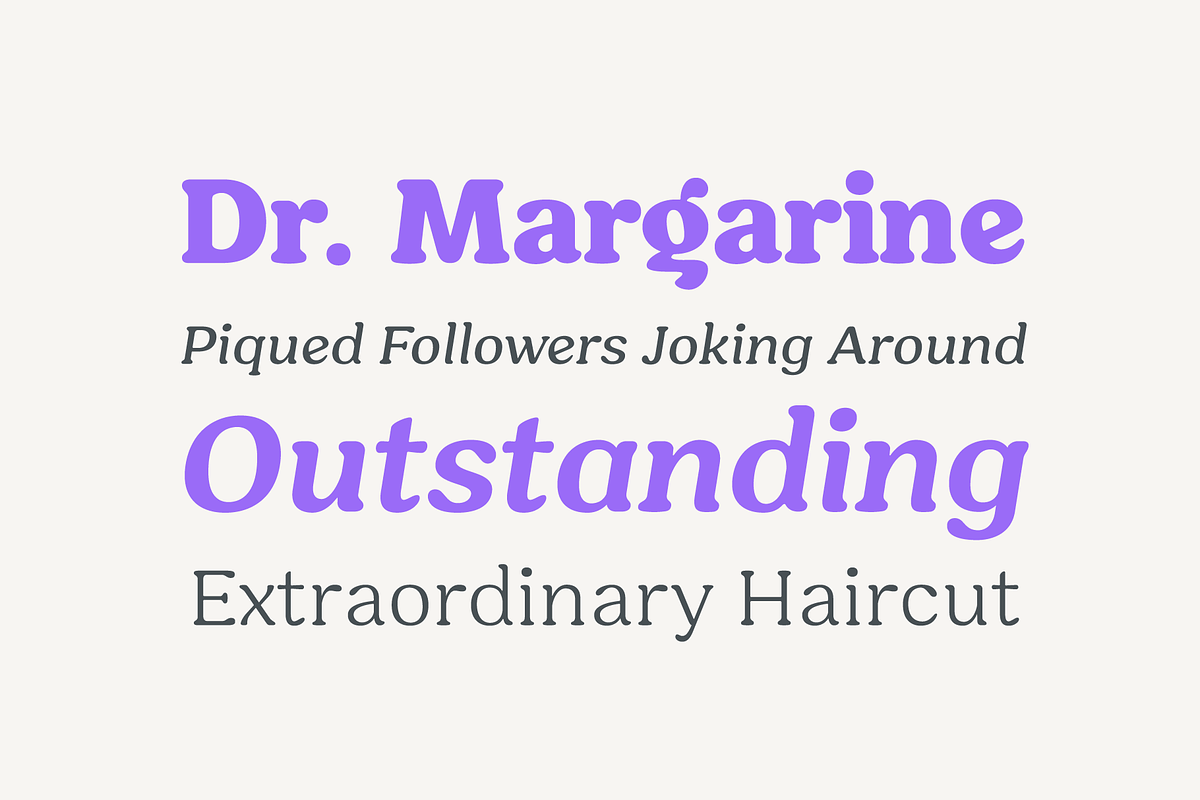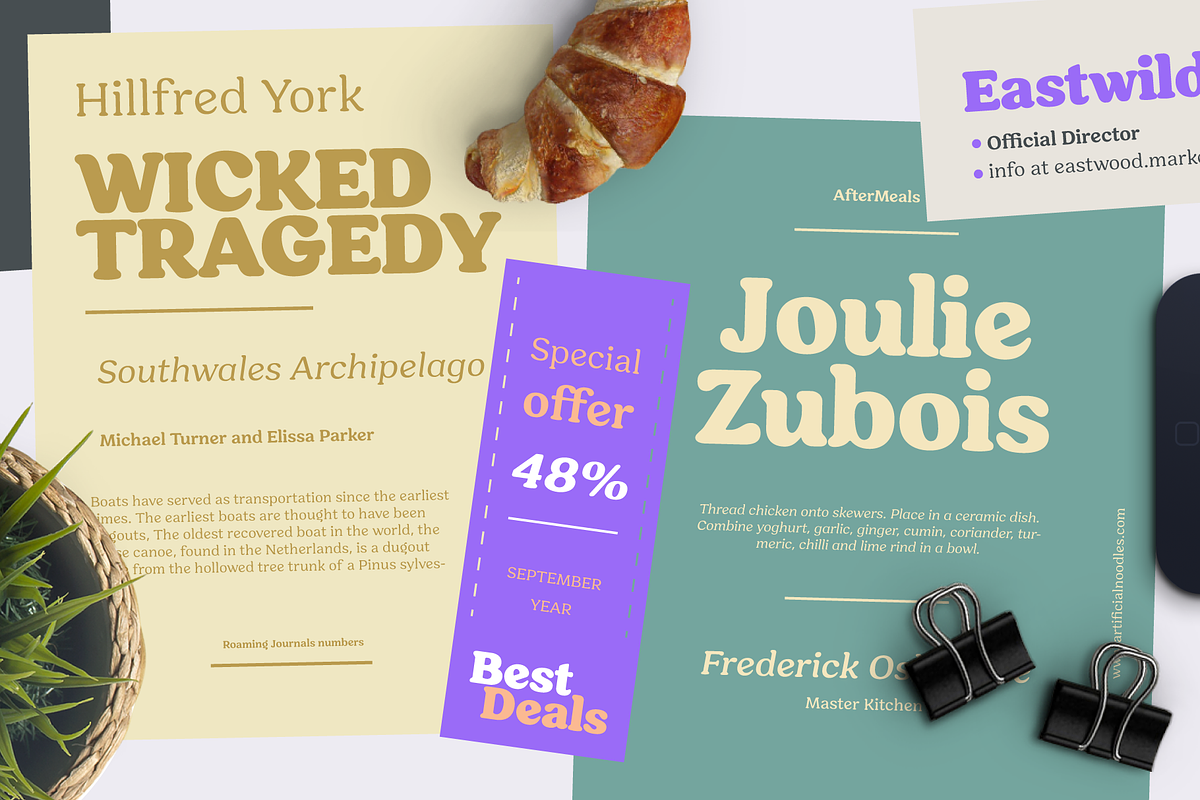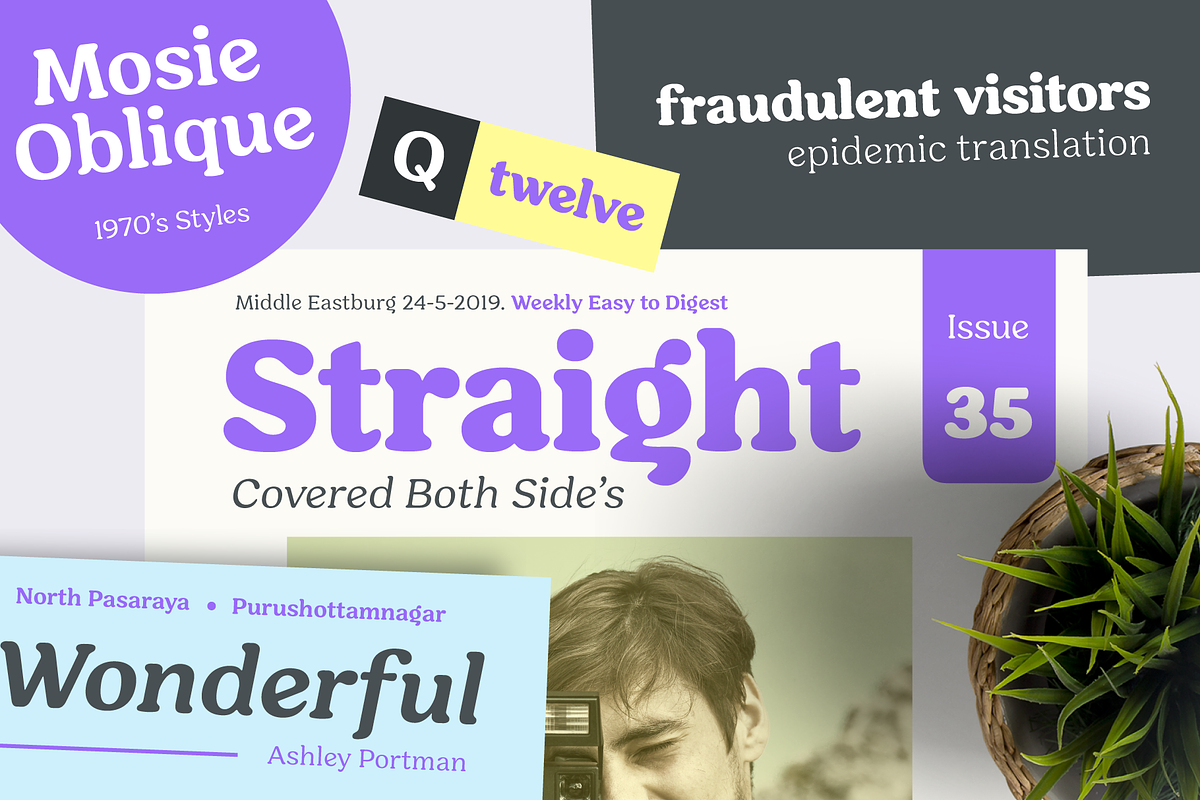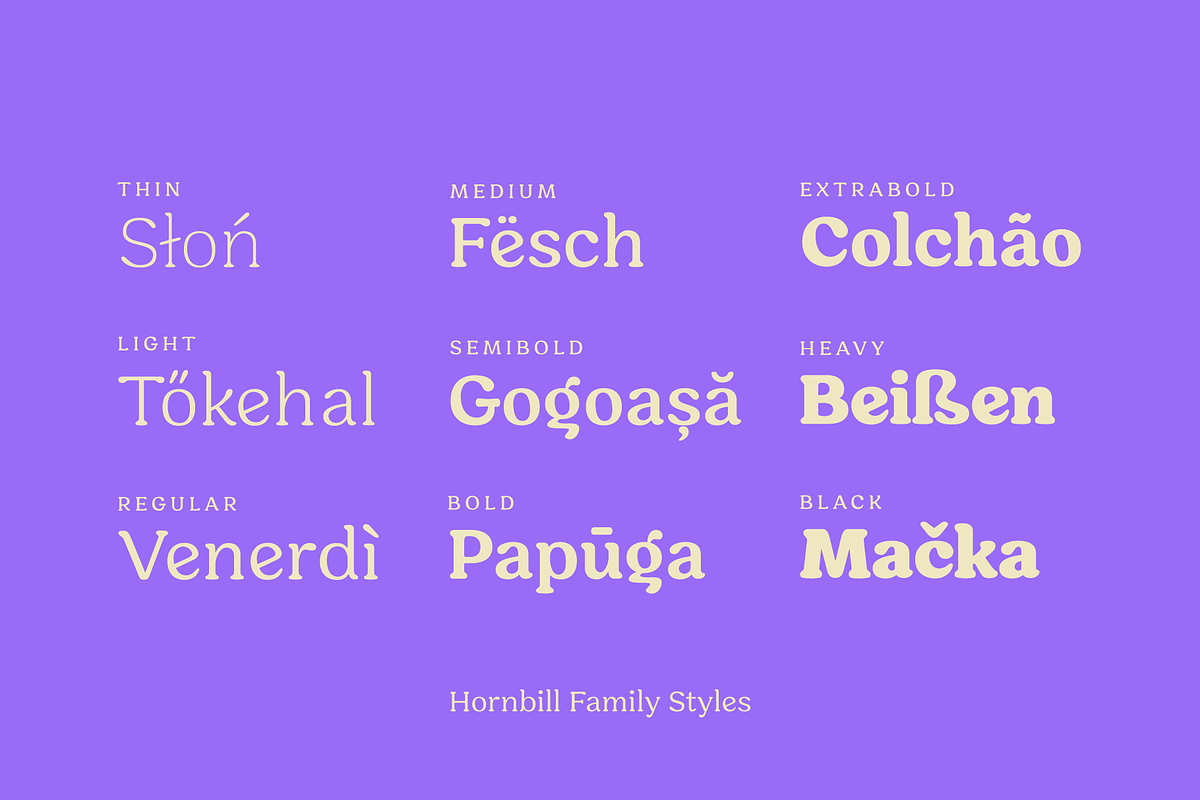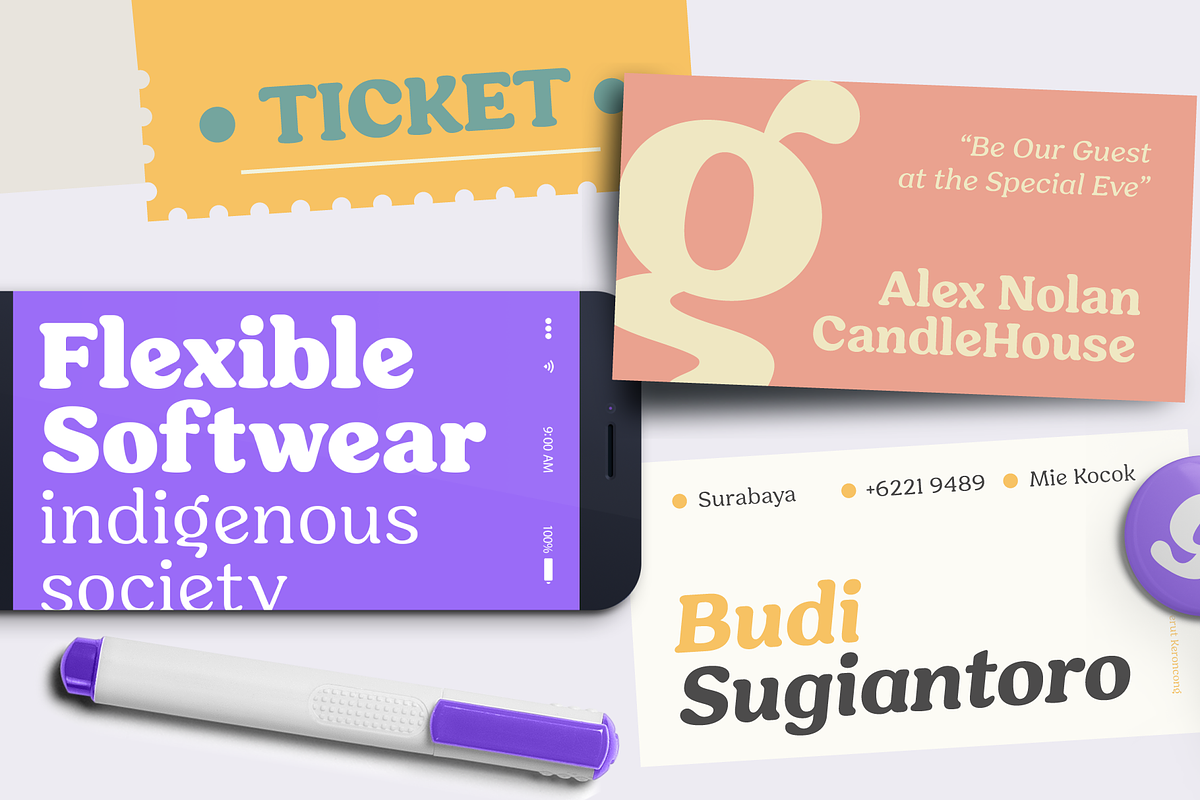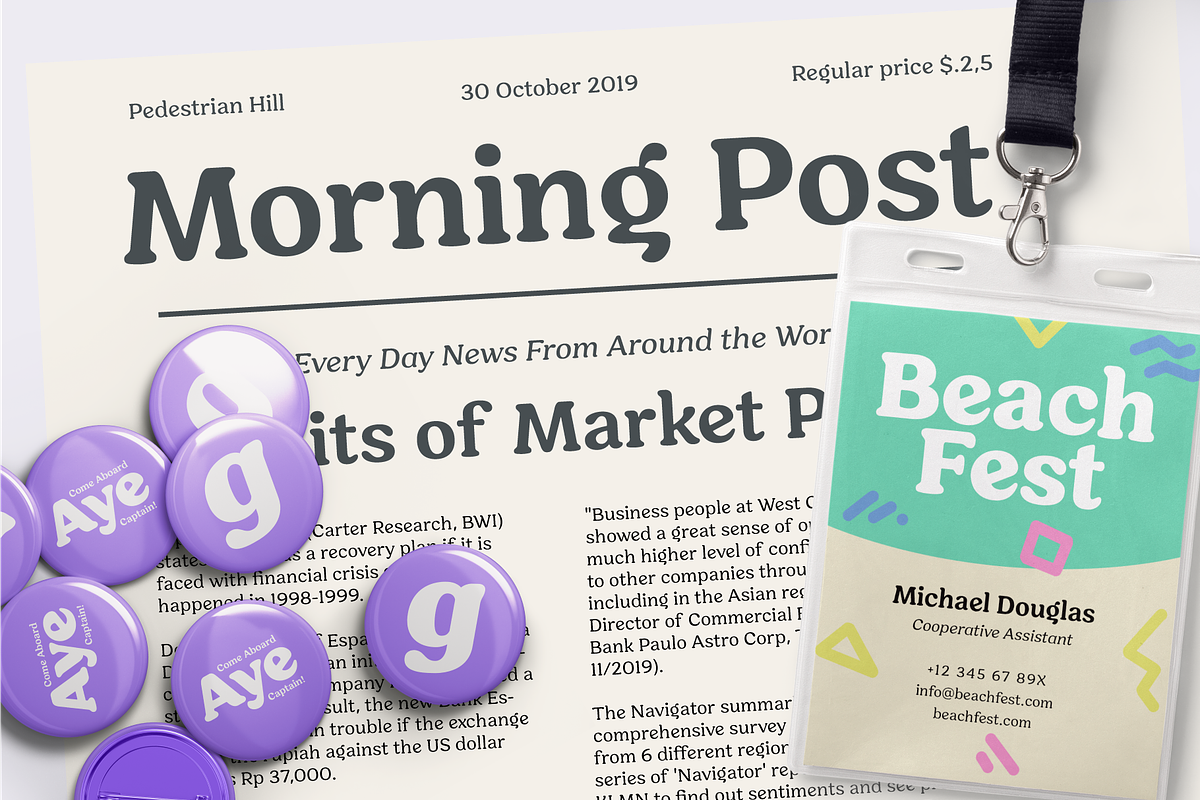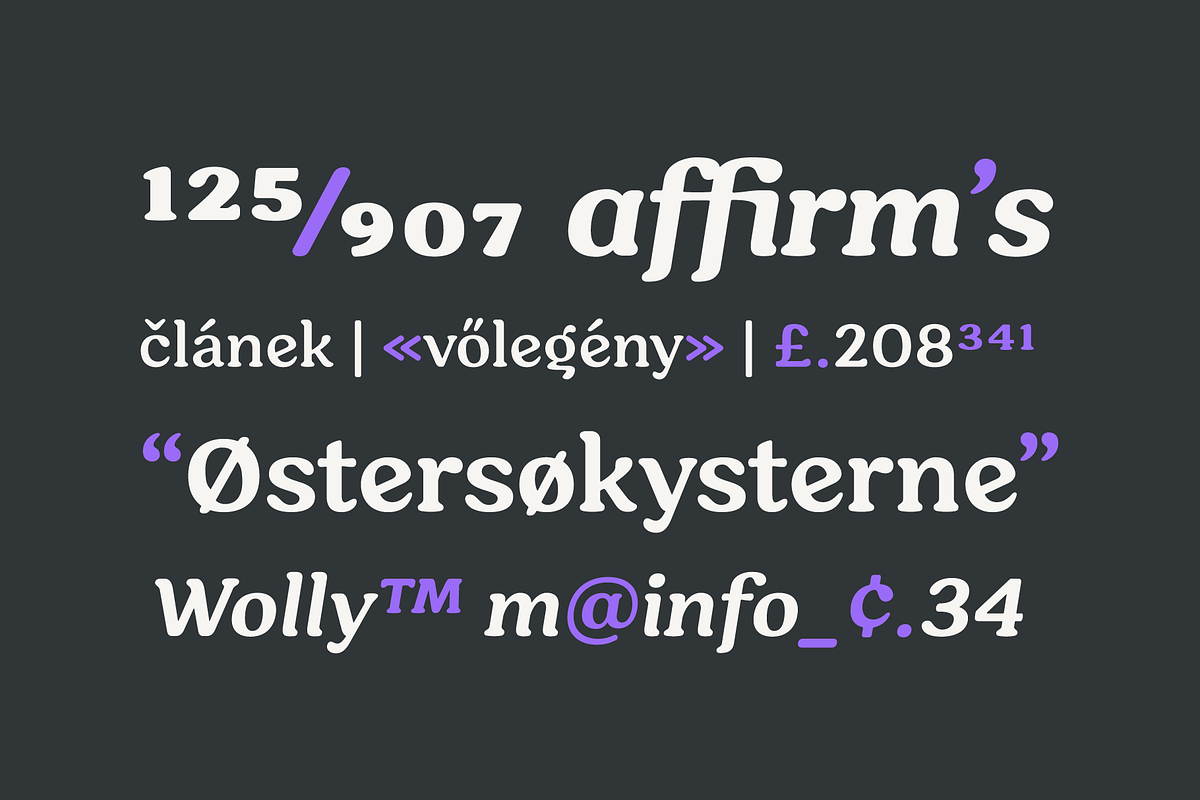
Hornbill; 18 Retro Fonts
Hornbill is a soft serif font family that inspired by the 70's retro styles. Hornbill give a clean and versatile letterform that fit not only for display, but also for reading purposes. Hornbill consist of 18 styles from thin to black with each matching italics